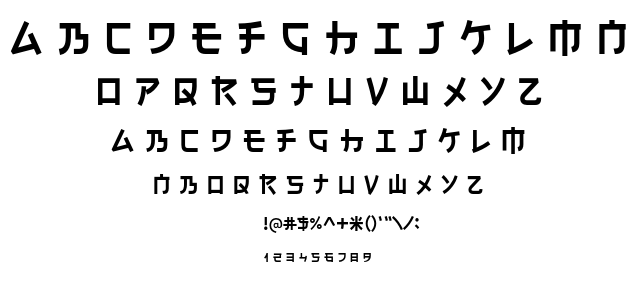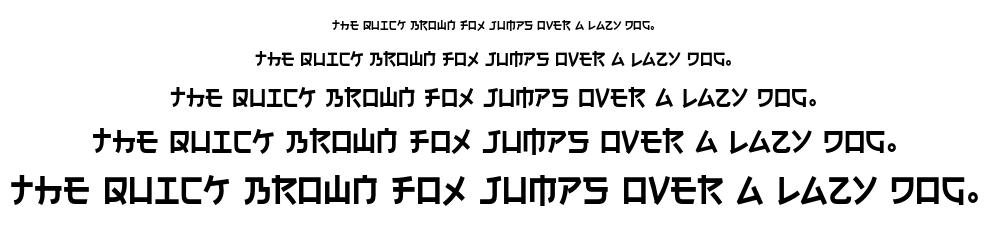
Electroharmonix takes Japanese katakana, mixes in a little kanji and mangles it to vaguely resemble the alphabet. Don’t forget to read the files inside the zip for details. Updated in 2012.